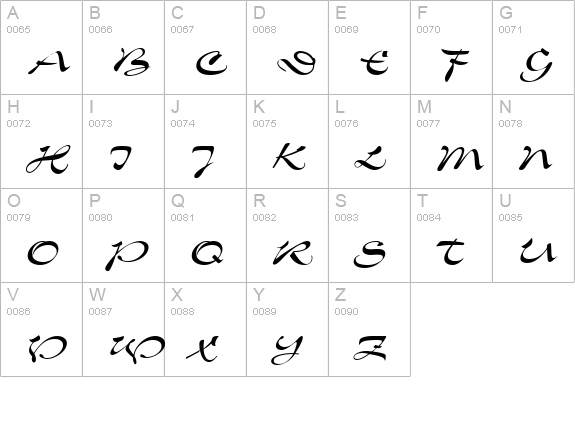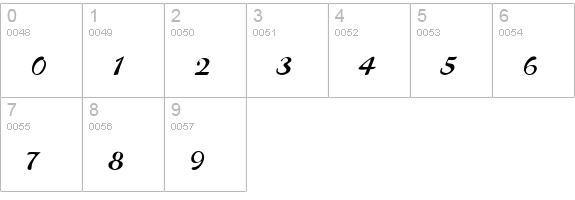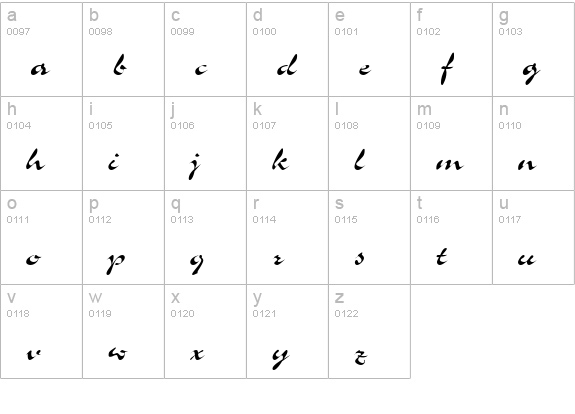
Memo Script SSi font is a beautiful and elegant script typeface that exudes sophistication and charm. With its flowing lines and graceful curves, this font is perfect for adding a touch of class to your designs. Whether you're creating wedding invitations, greeting cards, or branding materials, Memo Script SSi font will elevate your projects to a whole new level. The best part? Memo Script SSi font is completely free to download at FontsMarket.com. Now you can add this stunning font to your collection without having to spend a dime. Don't miss out on this amazing opportunity to enhance your designs with the timeless beauty of Memo Script SSi font. Download it now and let your creativity soar!